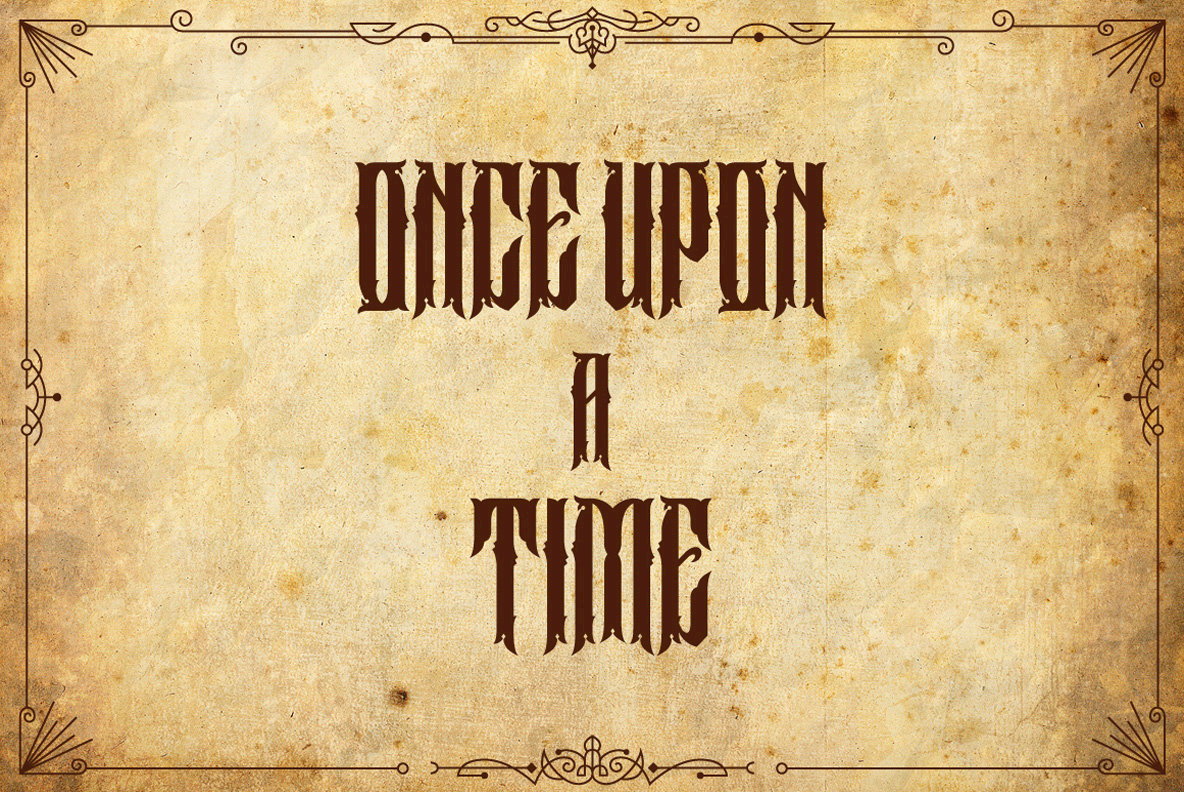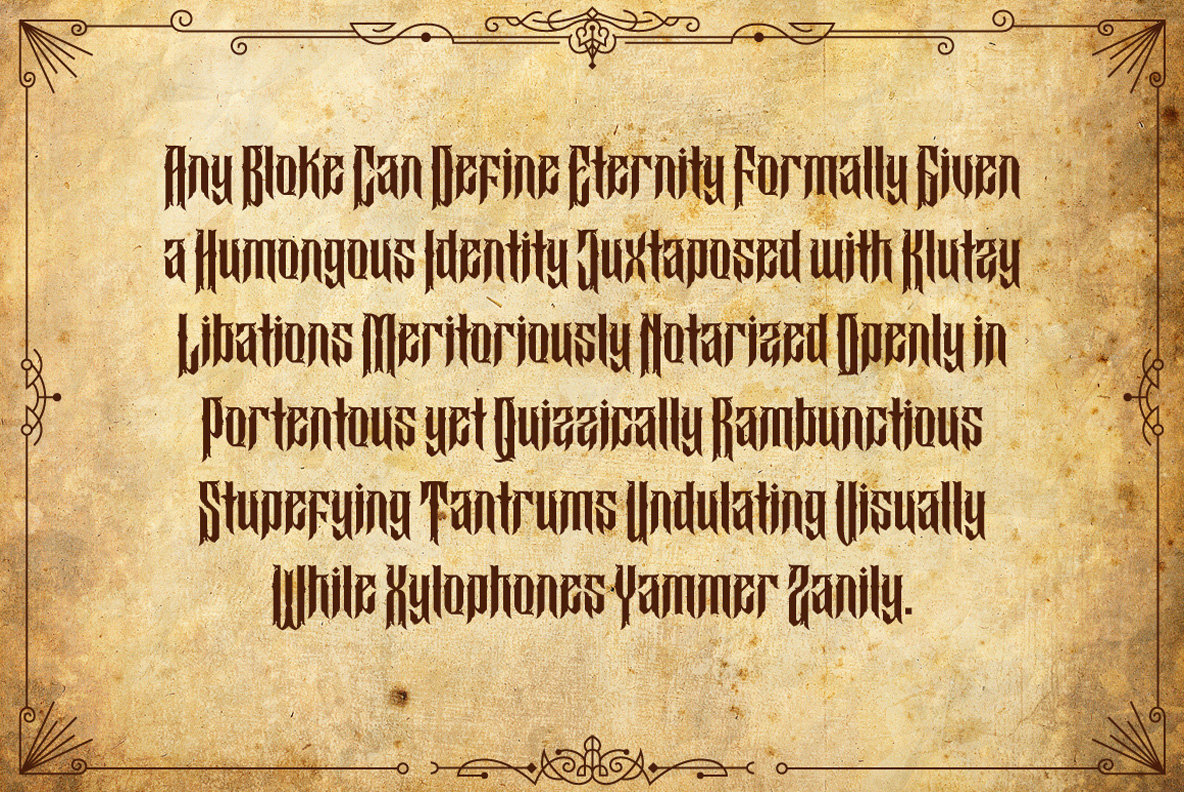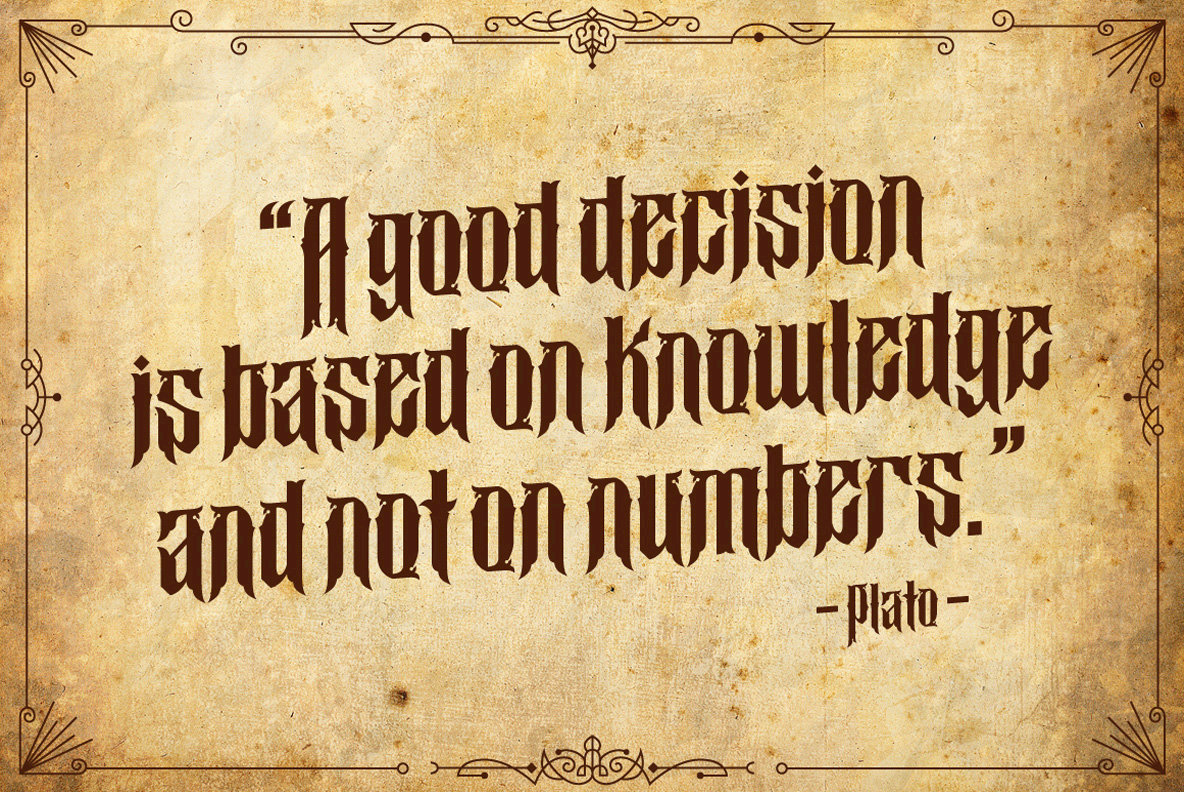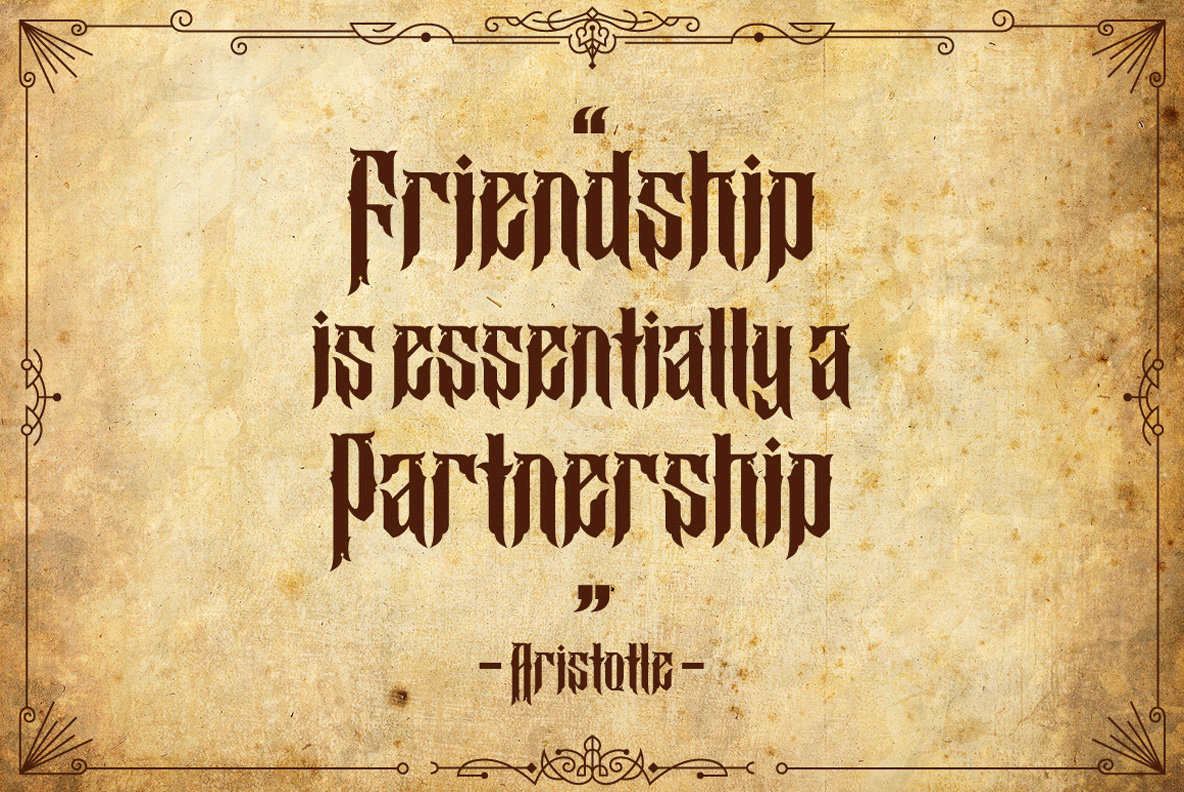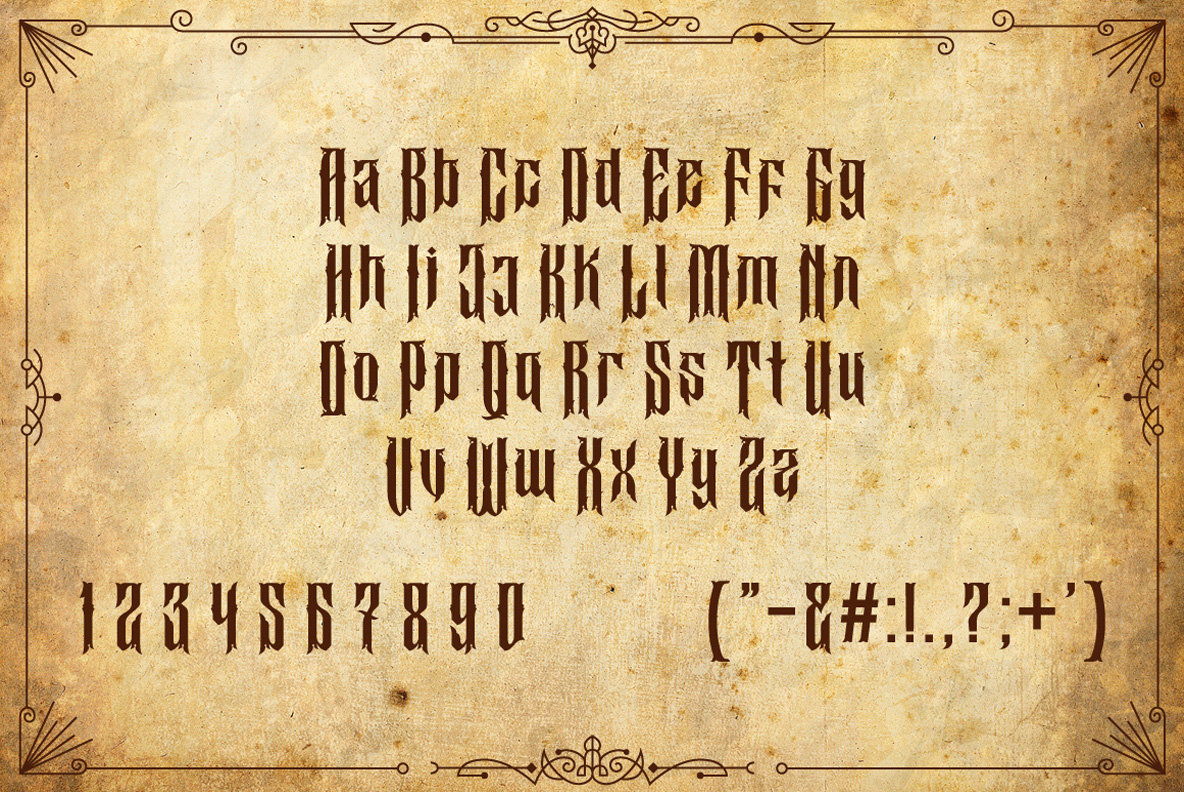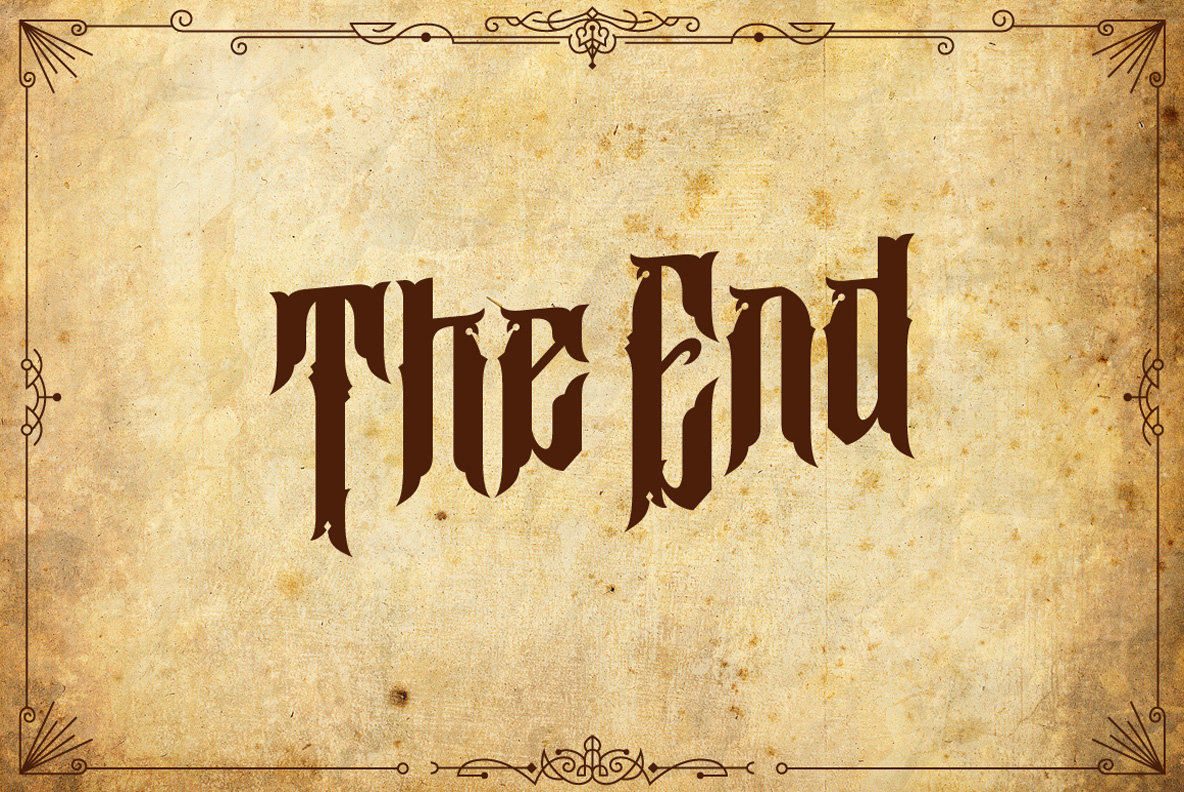
Buyanbengak Font
Buyanbengak
Buyanbengak is a sophisticated ornamental typeface drawing inspiration from old manuscripts and gothic styles. Ideal for those who appreciate tradition and ornamentation, this typeface is perfect for crafting posters, books, flyers, and quotes. Its elegant design complements a wide range of visual projects, securing a seamless readability without compromising on its historical charm. Experience its versatility firsthand as you incorporate it into your creative work.Buyanbengak: Old Manuscript-Inspired Typeface